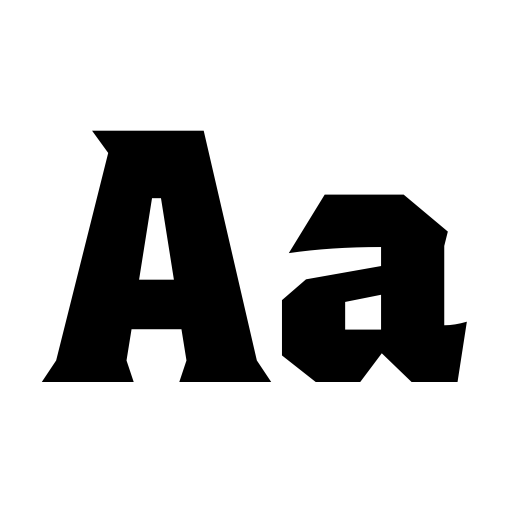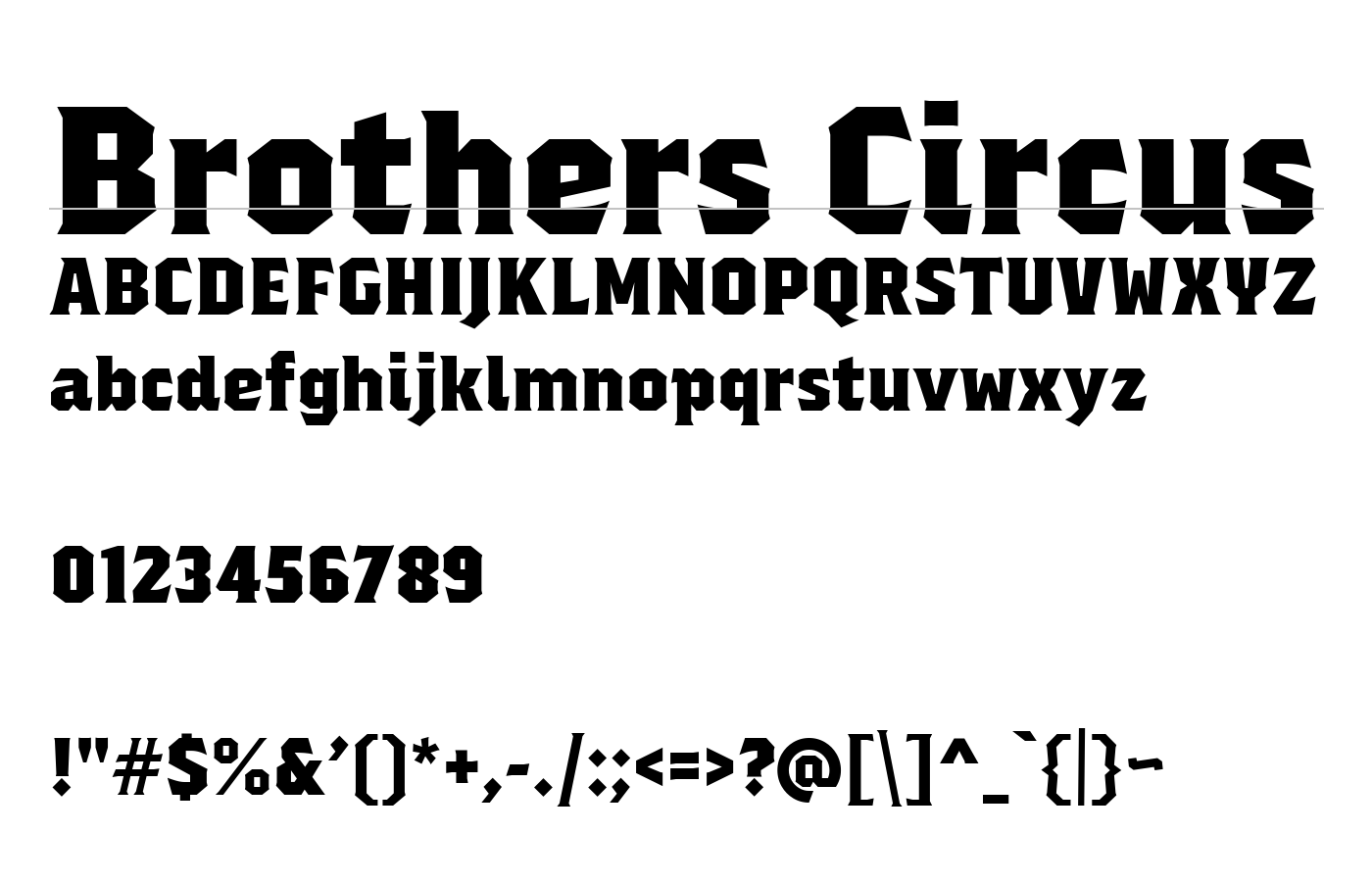
Brothers Circus is a bold, condensed serif typeface with a strong, vintage character reminiscent of old circus posters and Western-style signage. Its sharp, angular serifs and high contrast strokes give it a striking, theatrical feel that works perfectly for eye-catching headlines, branding, and designs that need a sense of nostalgia and drama. This font is ideal for logos, posters, and packaging where a bold statement and unique personality are desired.
Brothers Circus Font